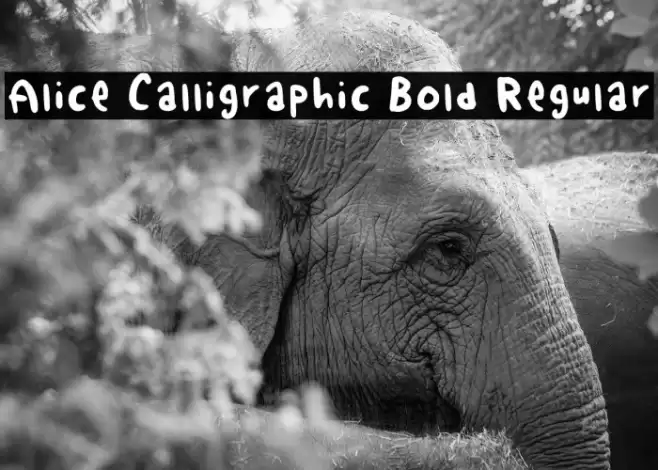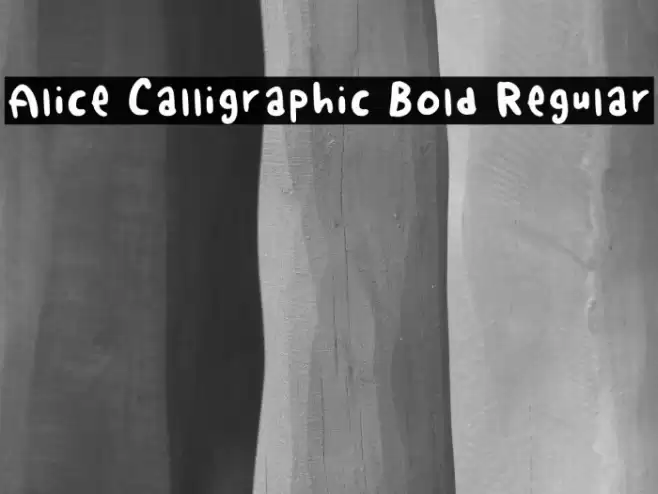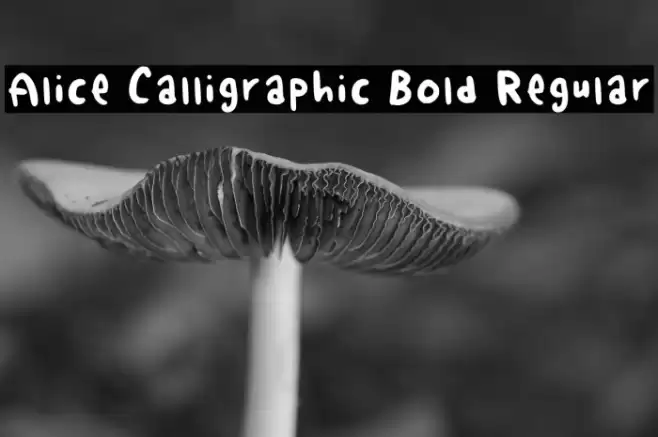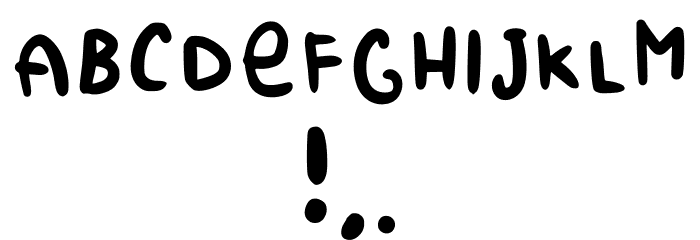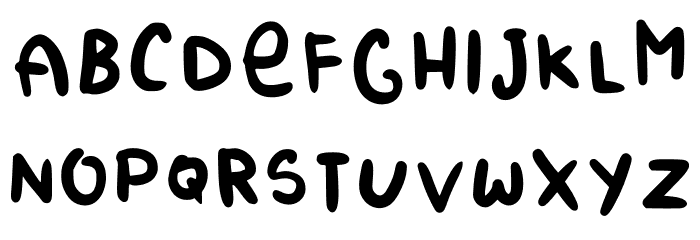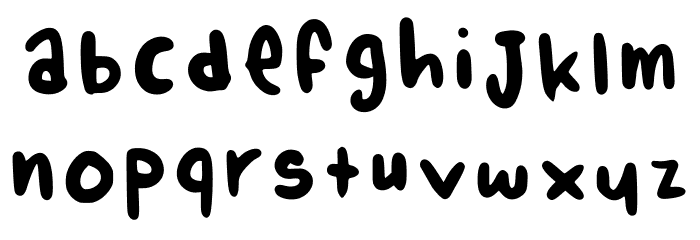
Alice Calligraphic Bold Regular Font
Alice Calligraphic Bold Regular Description
A playful and bold calligraphic font with rounded edges and a handwritten style.
Playful, bold calligraphic font with rounded edges from Uncategorized fonts.
- Proposed Projects: Greeting cards, playful branding, children's books.
- Overall Style: Playful, Casual